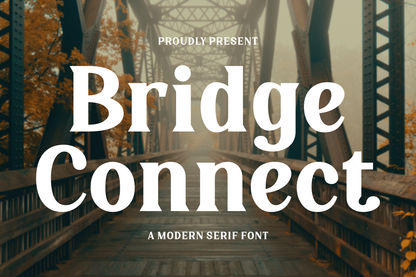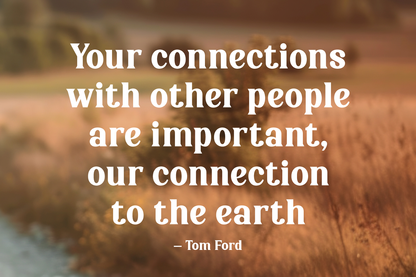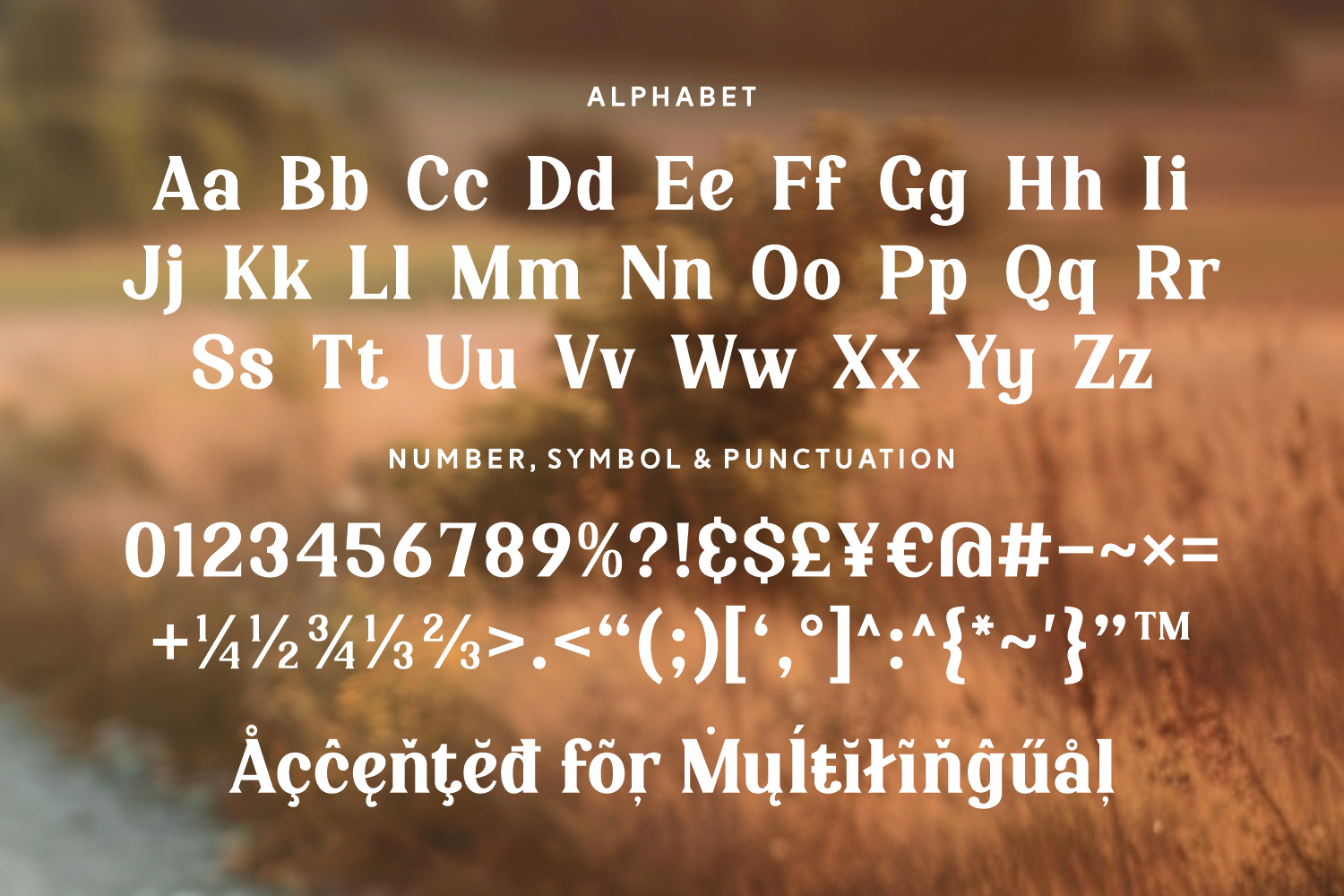
Bridge Connect is a bold and versatile serif font that balances structure and softness. Its solid shapes and smooth curves make it a reliable choice for branding, packaging, signage, and promotional materials.
Designed to communicate strength with subtle warmth, this typeface is clean, confident, and modern—ideal for businesses and creatives alike. A modern serif that builds trust and visual impact.